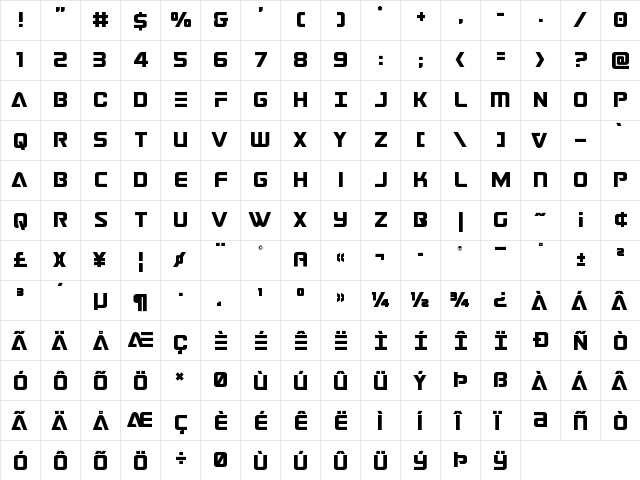
Astro Armada Regular Font Preview
Astro Armada Regular
Astro Armada Regular Font Details
Design Context for Astro Armada Typeface
Astro Armada is a composed and adaptable typeface that performs quietly and consistently across a wide range of design contexts.